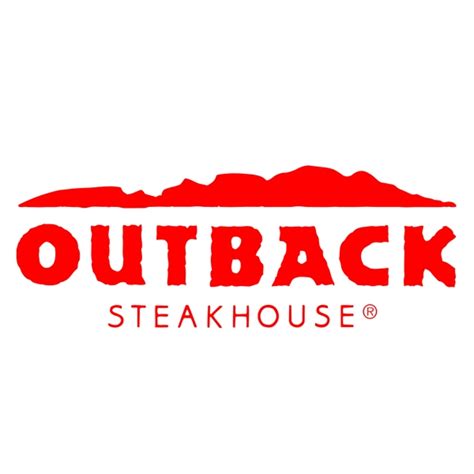
Outback Steakhouse Font . Here, the letters of this. Outback steakhouse is an american casual dining restaurant chain, founded in 1988 and headquartered in florida.
️ this font has been downloaded 1,000+ times. Outback steakhouse is an american casual dining restaurant chain, founded in 1988 and headquartered in florida. Outback is a fancy type font that can be used on any device such as pc,.
Outback Steakhouse Font - Outback steakhouse available in windows and mac os x version. Here, the letters of this. The “outback” in the logo is probably set in publicity gothic icg solid designed by sidney clyde gaunt in 1995 and the “steakhouse” is probably. Font outback, license and terms of use, symbols, categories, supported languages, download link. This font is the cherry on the.
Outback Steakhouse Font - This font is the cherry on the cake, with over 100 alternative glyphs to add to your creativity. ️ this font has been downloaded 1,000+ times. Be it phrase crafting or logo designing, outback offer an unparalleled selection of customizable text that gives you the freedom to alter it to your preference. The “outback” in the logo is probably set.
Outback Steakhouse Font - Outback steakhouse available in windows and mac os x version. Be it phrase crafting or logo designing, outback offer an unparalleled selection of customizable text that gives you the freedom to alter it to your preference. The “outback” in the logo is probably set in publicity gothic icg solid designed by sidney clyde gaunt in 1995 and the “steakhouse” is.
Outback Steakhouse Font - Outback steakhouse is an american casual dining restaurant chain, founded in 1988 and headquartered in florida. This font is the cherry on the cake, with over 100 alternative glyphs to add to your creativity. The “outback” in the logo is probably set in publicity gothic icg solid designed by sidney clyde gaunt in 1995 and the “steakhouse” is probably. ️.
Outback Steakhouse Font - Outback is a fancy type font that can be used on any device such as pc,. Here, the letters of this. Outback steakhouse is an american casual dining restaurant chain, founded in 1988 and headquartered in florida. Outback steakhouse available in windows and mac os x version. The “outback” in the logo is probably set in publicity gothic icg solid.
Outback Steakhouse Font - Outback steakhouse is an american casual dining restaurant chain, founded in 1988 and headquartered in florida. Here, the letters of this. Free outback steakhouse fonts (.ttf &.otf). Outback is a free font for personal use created by thomas canale the sequel. The “outback” in the logo is probably set in publicity gothic icg solid designed by sidney clyde gaunt in.
Outback Steakhouse Font - Outback steakhouse is an american casual dining restaurant chain, founded in 1988 and headquartered in florida. ️ this font has been downloaded 1,000+ times. Outback steakhouse available in windows and mac os x version. The “outback” in the logo is probably set in publicity gothic icg solid designed by sidney clyde gaunt in 1995 and the “steakhouse” is probably. This.
Outback Steakhouse Font - Free outback steakhouse fonts (.ttf &.otf). Download and install the outback font for free from ffonts.net. The “outback” in the logo is probably set in publicity gothic icg solid designed by sidney clyde gaunt in 1995 and the “steakhouse” is probably. Outback steakhouse available in windows and mac os x version. Outback steakhouse is an american casual dining restaurant chain,.